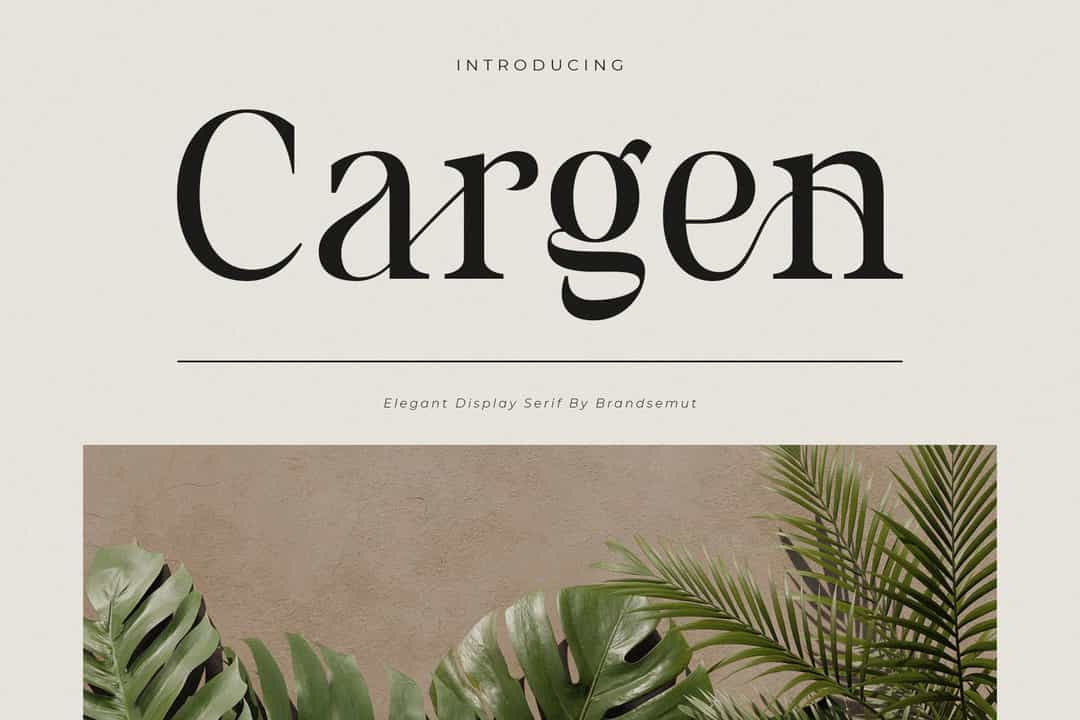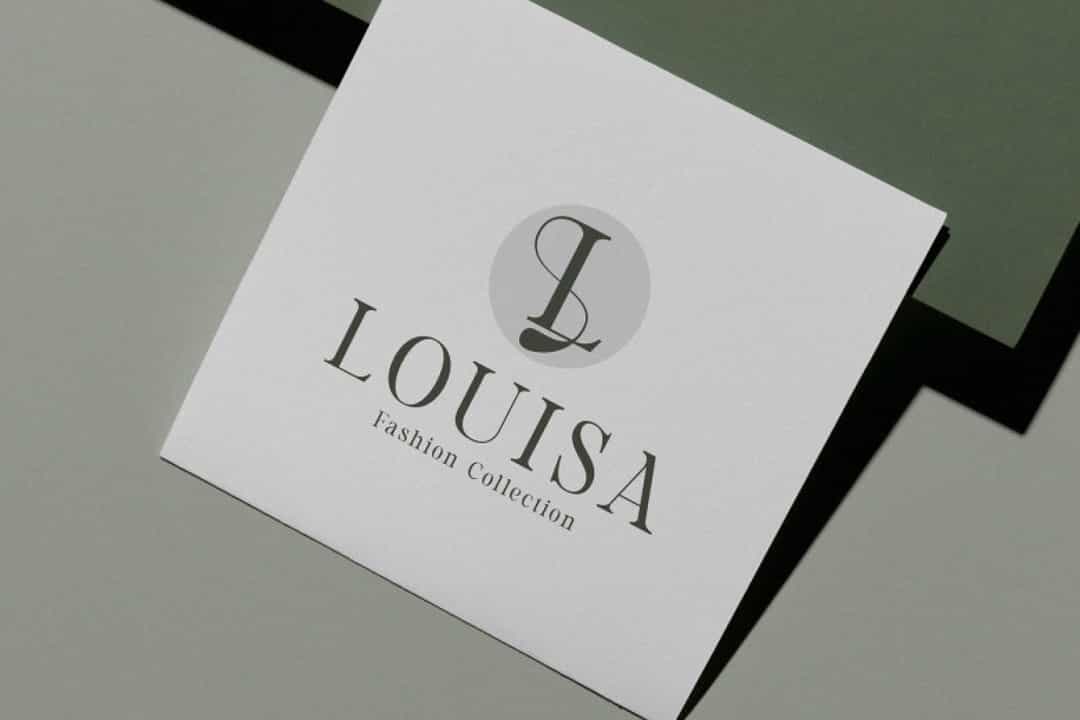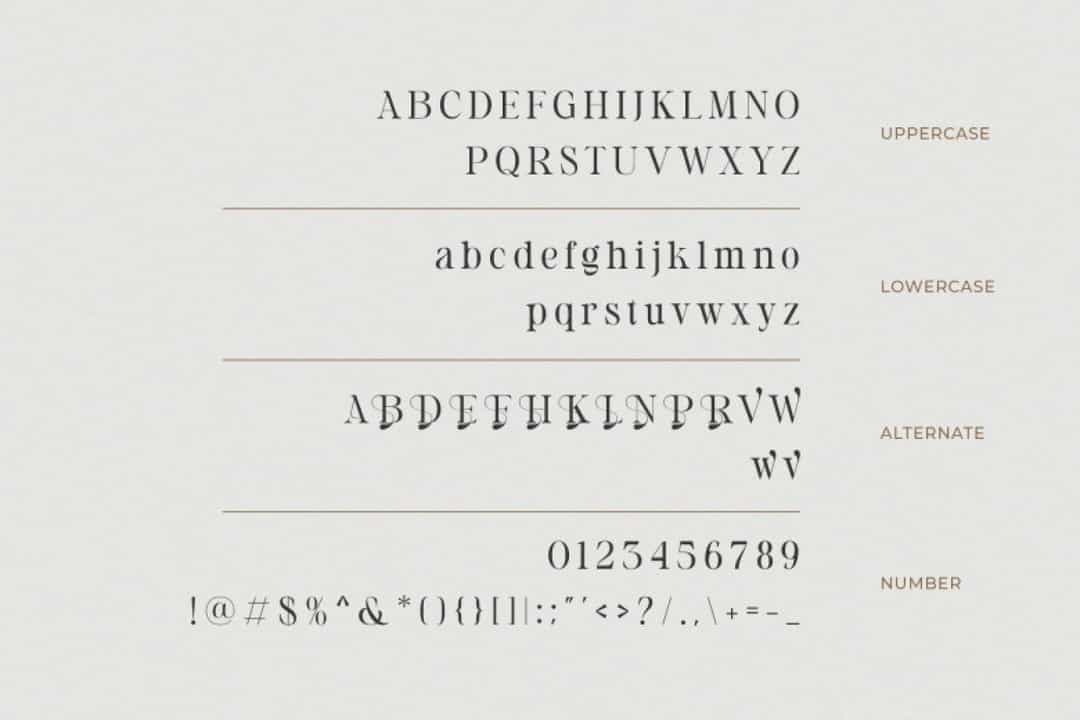
Cargen is a serif typeface inspired by Japanese hiragana script and means victorious beauty; this font offers many alternate words and connections suited for projects related to Japan such as branding, restaurant menus, movie titles labels and menus, or movie credits labels.